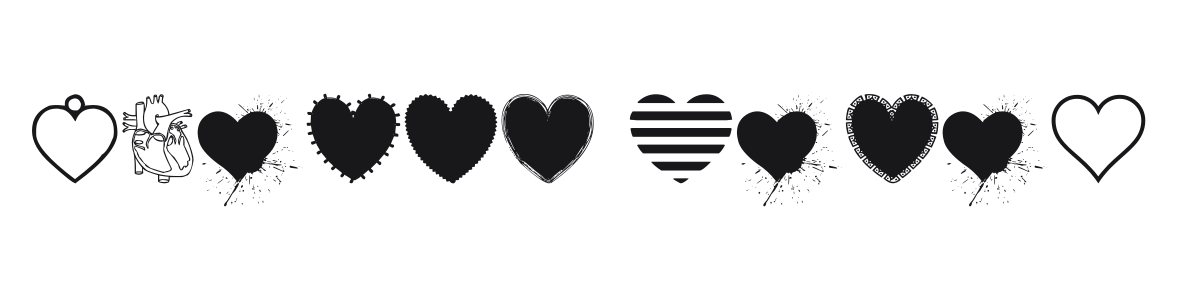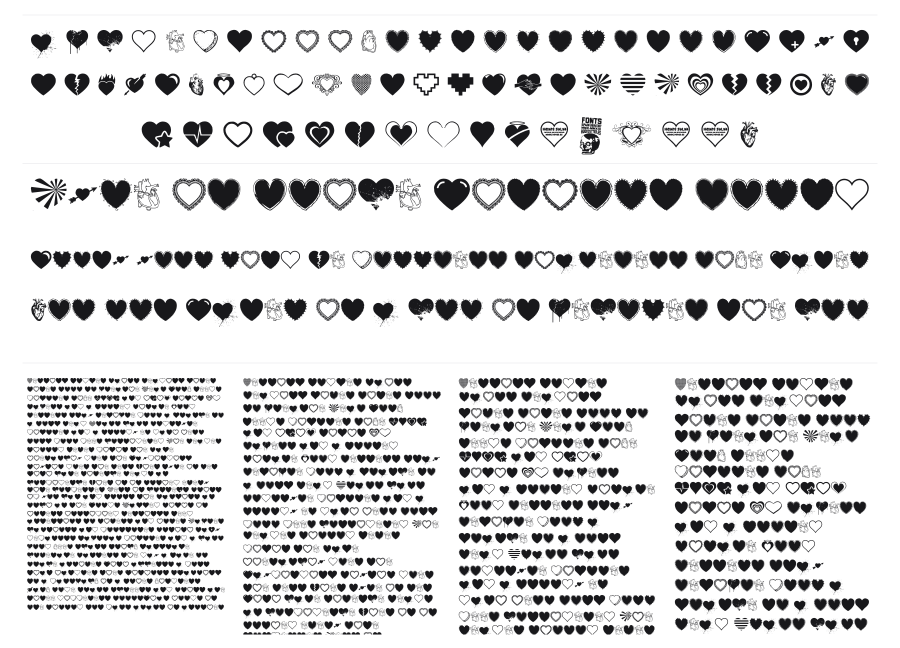
Hearts Salad
Hearts Salad is a dingbat font from Woodcutter featuring an eclectic collection of heart icons in one file. The set ranges from clean solid hearts and lace-bordered frames to grunge-splattered ink splatters, spiky distressed forms, and a detailed anatomical illustration. It covers a surprisingly wide emotional range for a single-theme symbol font.